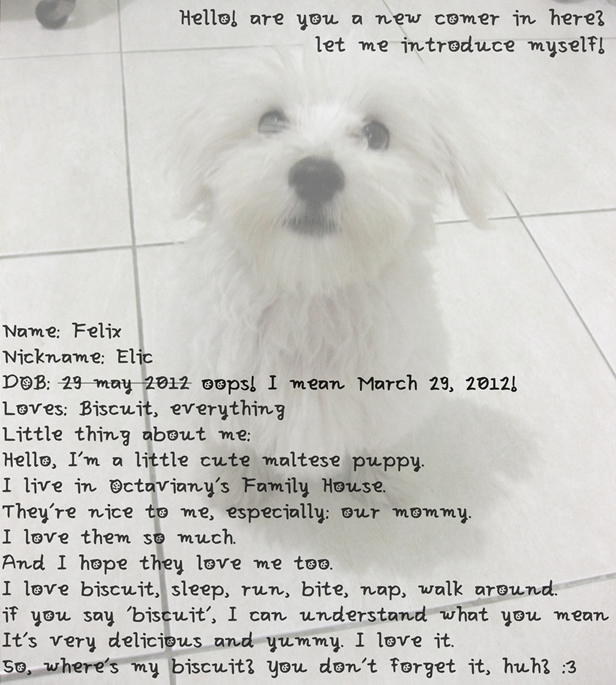
Font name: | Elic Loves Biscuit |
Author: | Cindyyo |
Elic Loves Biscuit! and he absolutely loves it. Sorry for the disorder 'biscuit' on the letter o and O. love your pet if you have one and enjoy your time together! <3 |